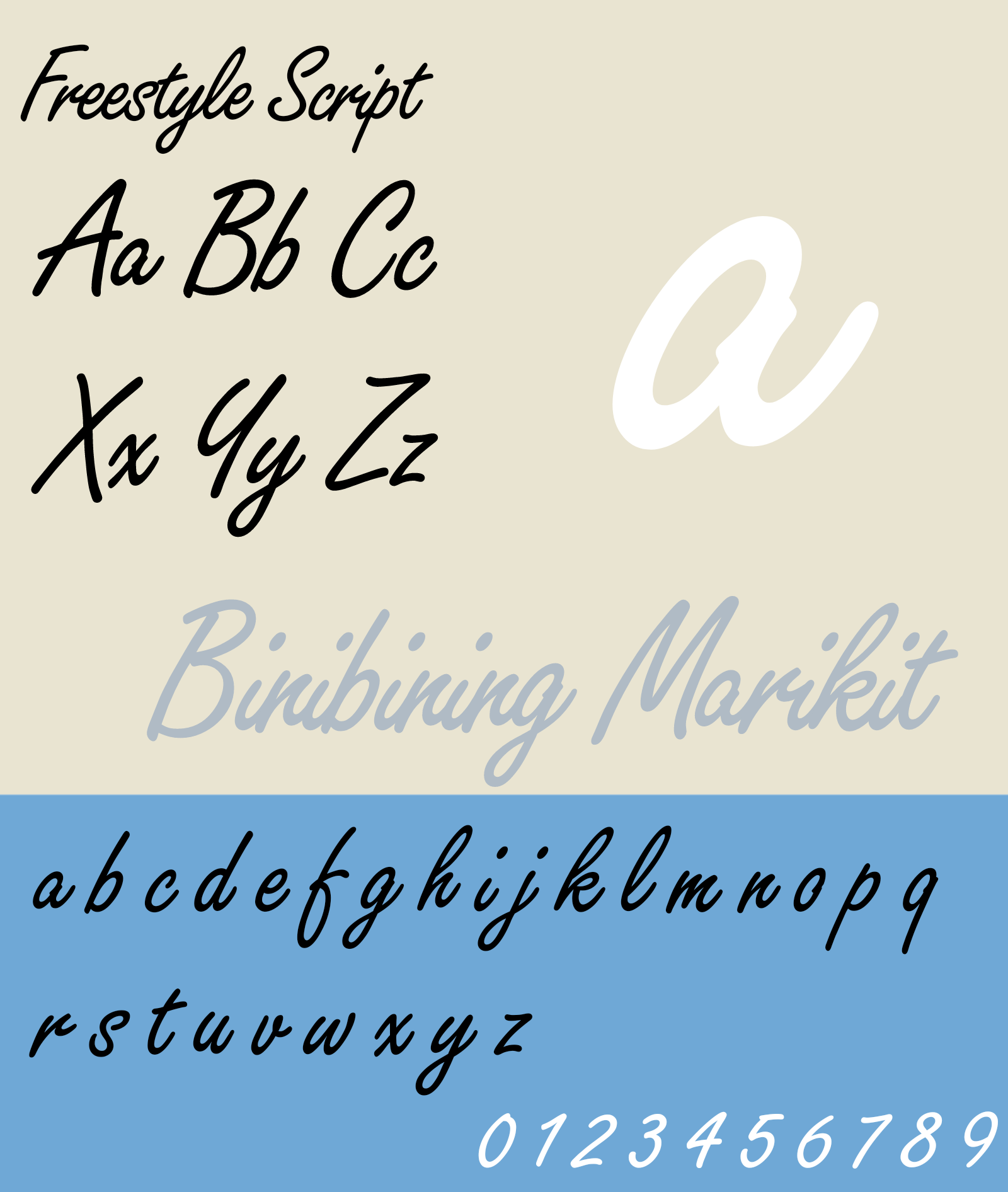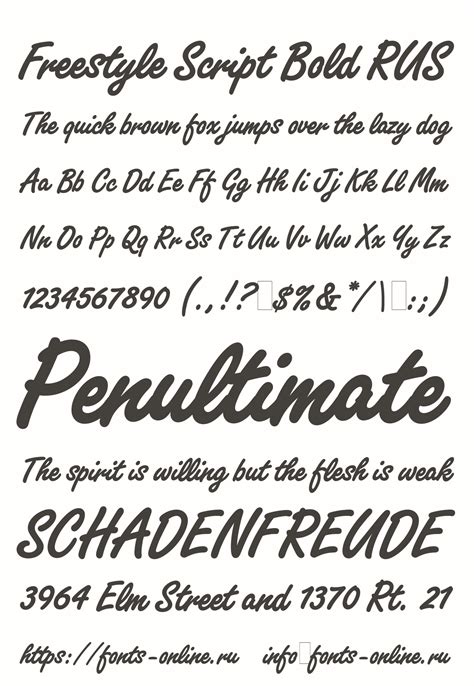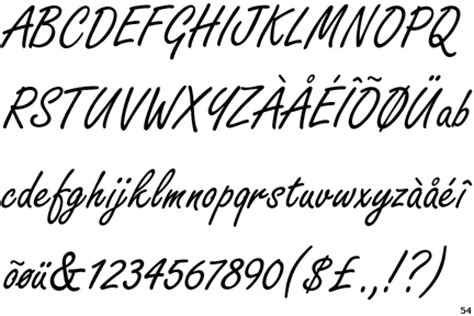
Freestyle Script Font
Freestyle Script Font - Its capitals can be used. Freestyle script font has been downloaded (333586) times. Web freestyle script font is a famous script typeface with a unique handwritten style. Web freestyle script is the work of designer martin wait. View sample text, character map, user rating and review for freestyle script regular. Freestyle script font comes with uppercase, lowercase letters, numbers, ligature, punctuation, and. Web download freestyle script regular for free. Download freestyle script font free!